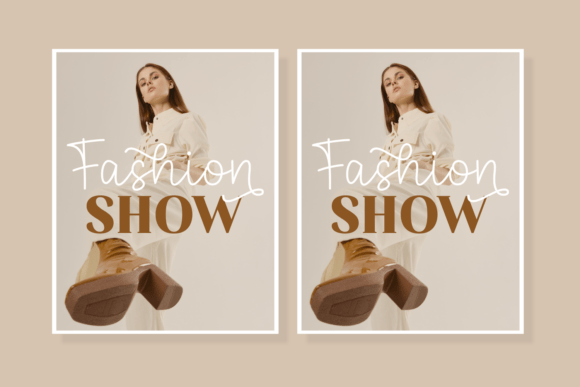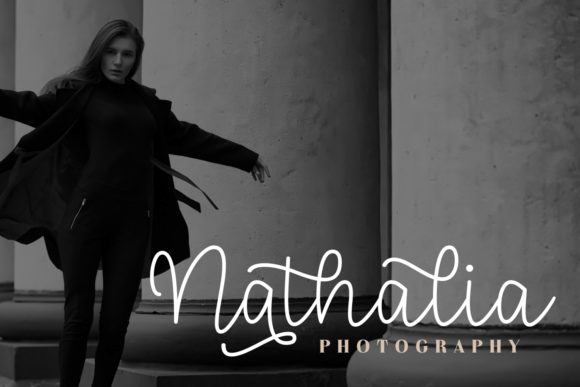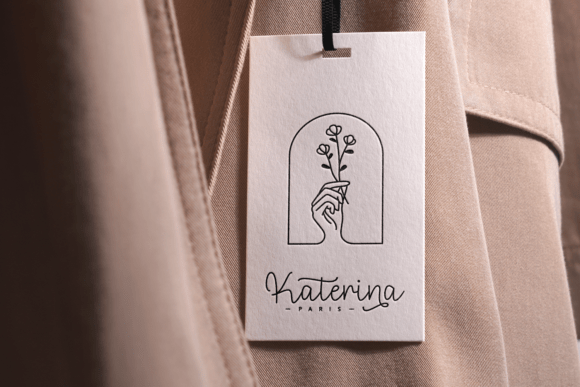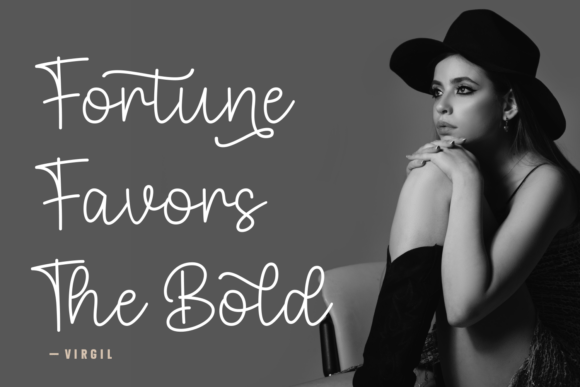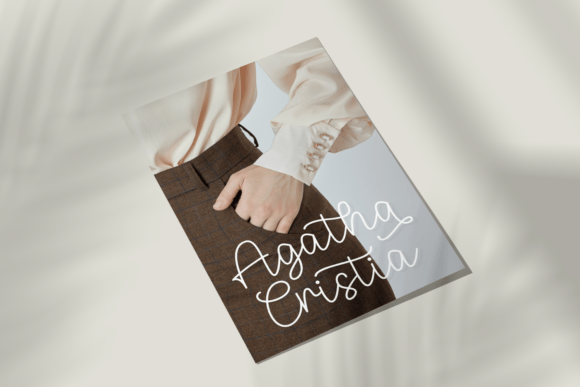
The Perfect Script for Captivating Creativity
As designers, we’ve all been there – staring at a blank canvas, searching for the perfect font to bring our vision to life. The struggle is real, but what if we told you that there’s a solution to make your creative process easier? Enter the elegant and sophisticated Beauty Angela Font, a hand-lettered script font that exudes effortless elegance and glamour.
This beautiful typeface is specifically designed for fashion, beauty, and lifestyle projects, making it the perfect choice for capturing attention and creating a memorable impression. With its refined playfulness and modern chic, the Beauty Angela Font adds a touch of sophistication to branding, social media, invitations, and high-end marketing materials. Whether you’re a seasoned designer or just starting out, this font is sure to elevate your designs and leave a lasting impression.
Key Features of Beauty Angela Font
- Font Family: Beauty Angela Font is a unique, hand-drawn script font.
- Unique Characteristics: Features elegant, flowing lines, and subtle flourishes, making it perfect for adding a touch of sophistication and femininity to designs.
Beauty Angela Font Review
I recently had the chance to work with the Beauty Angela font, and I must say it’s been a mixed bag for me. Here’s my honest review.
- Beautifully elegant script style that’s perfect for adding a touch of sophistication to any design.
- Extensive language support, making it a great choice for global branding and marketing materials.
- Highly legible and readable, even at smaller font sizes.
- Works well with a variety of font combinations and styles.
- Some characters and symbols may not be as detailed or refined as I would have liked.
- Could benefit from more contextual alternatives for certain letters, especially when paired with other fonts.
- Not ideal for use in very small text or at extremely large sizes, as it may lose some of its elegance.
Overall, I’d say the Beauty Angela font is a solid choice for any designer looking to add a touch of elegance to their designs. While it has some limitations, its beautiful script style and extensive language support make it a great addition to any font library.
The Beauty Angela font is perfect for creating elegant and sophisticated designs. Here are some tips and use cases:
- Use the Beauty Angela font for wedding invitations, wedding stationery, and other wedding-related designs.
- Use the Beauty Angela font for luxury brand logos and branding materials.
- Use the Beauty Angela font for high-end fashion designs and editorial content.